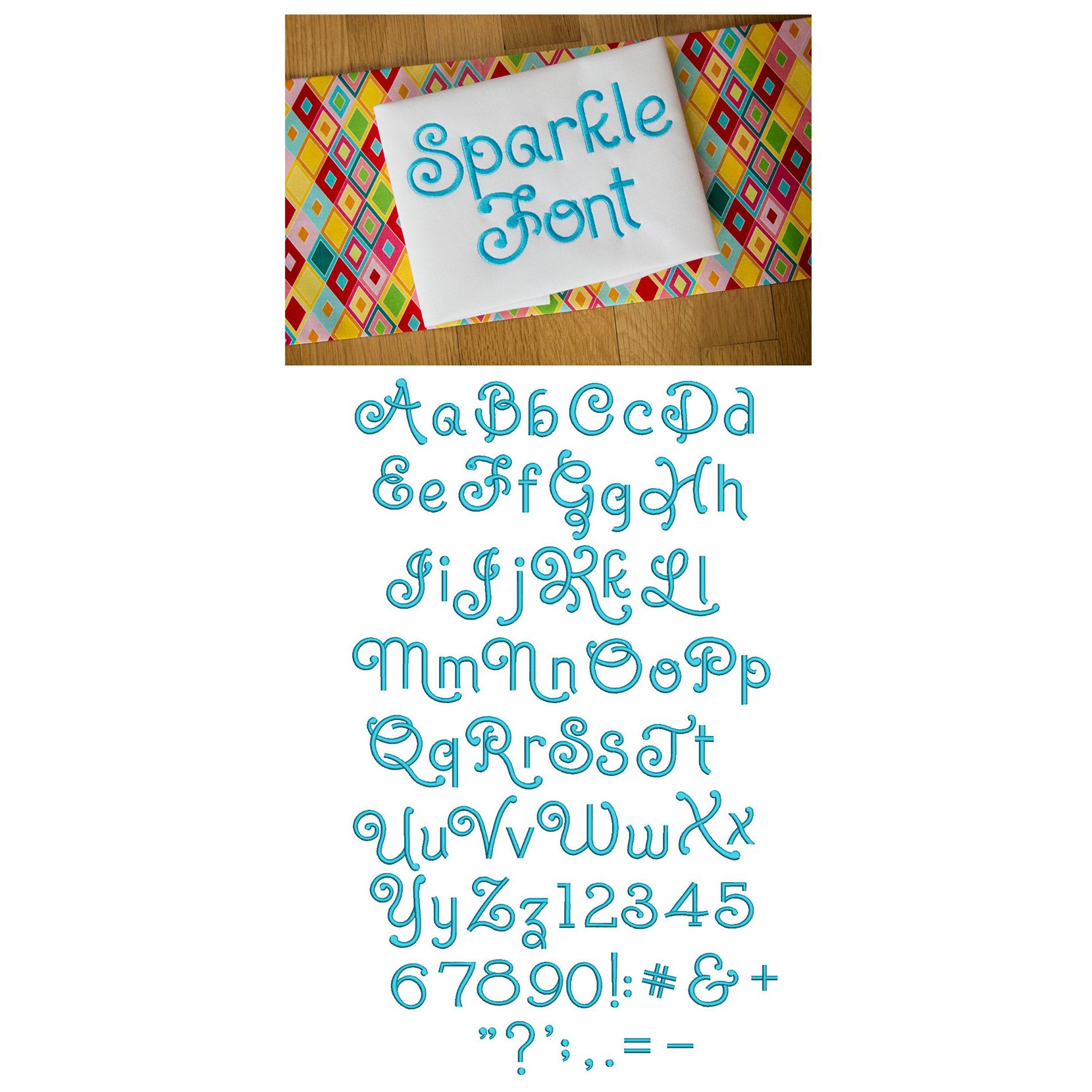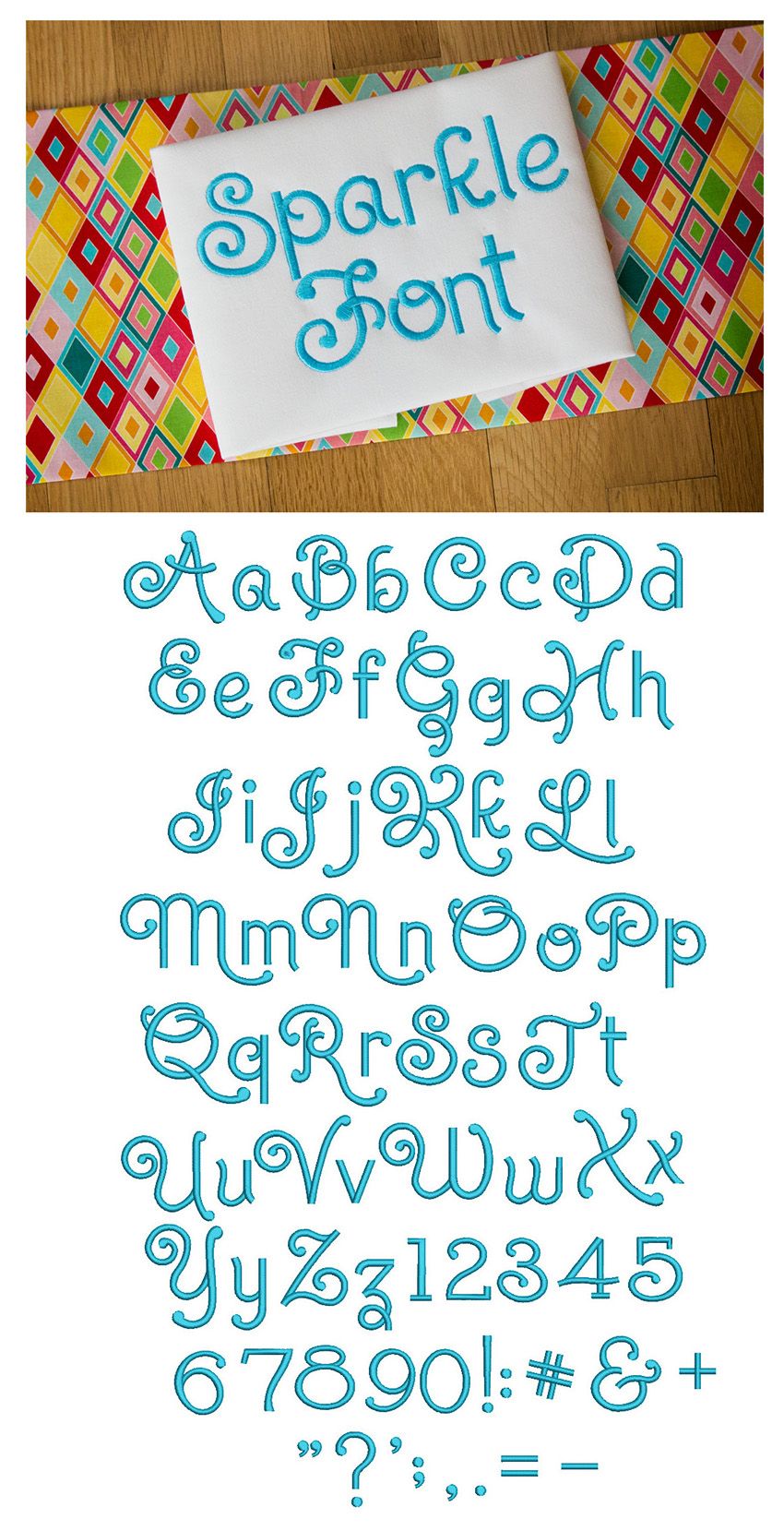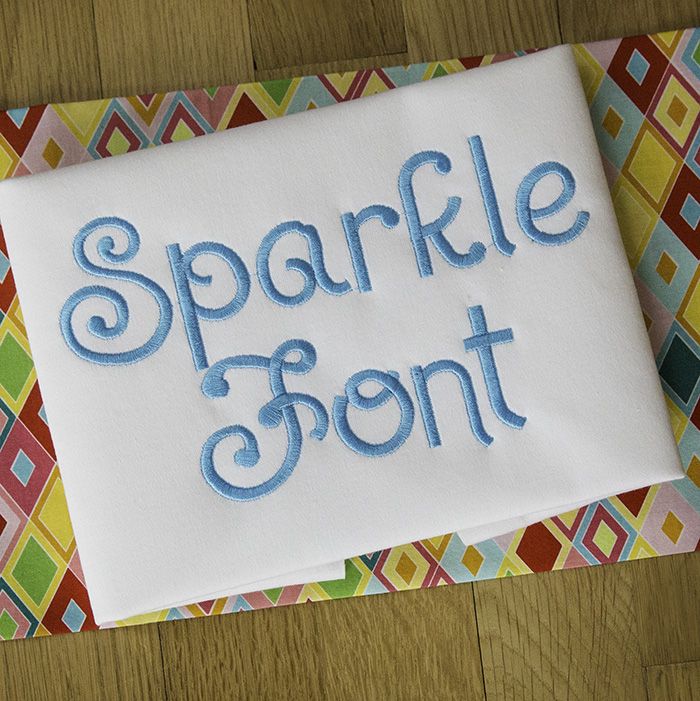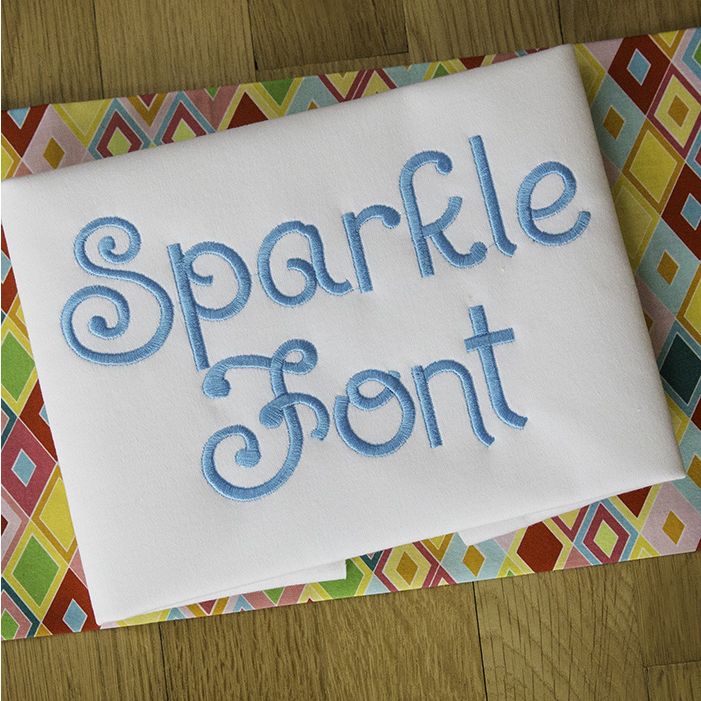
Sparkle Satin Stitch Embroidery Font
This is a really pretty, slightly swirly and feminine font.  All of our font alphabets are 100% manually digitized to bring you maximum stitch quality.